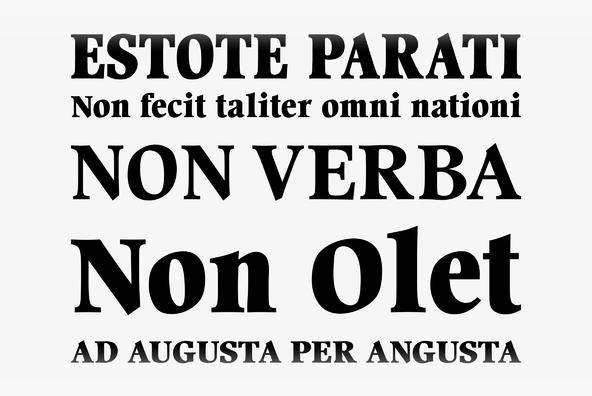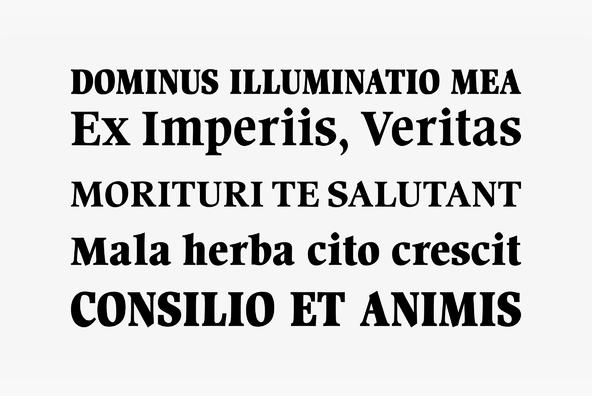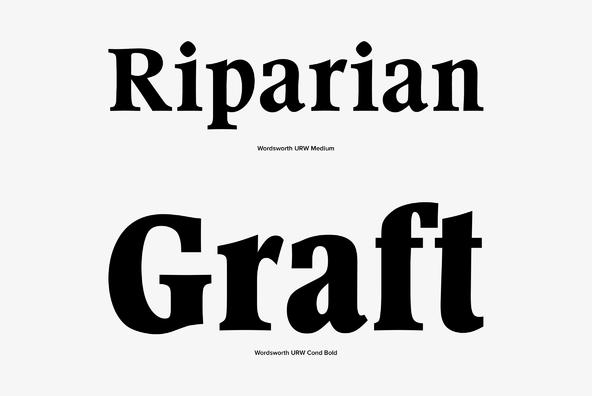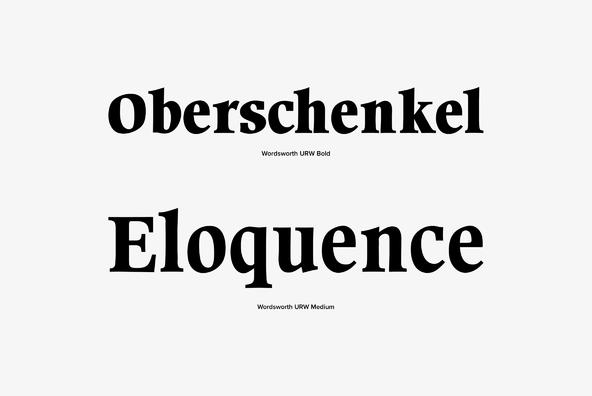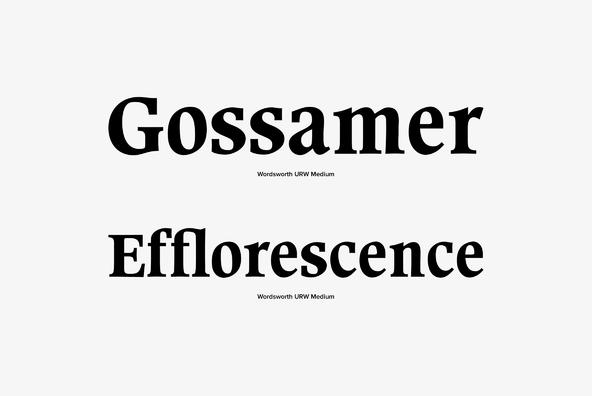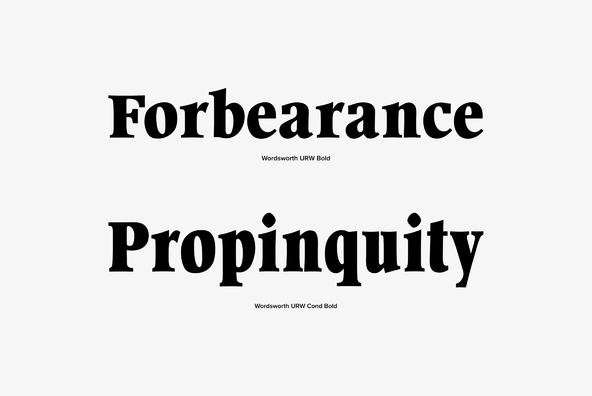
Wordsworth
Wordsworth is a beautiful American styled serif originally designed by Phil Martin in 1973. Works great in elegant and or masculine styled design projects.